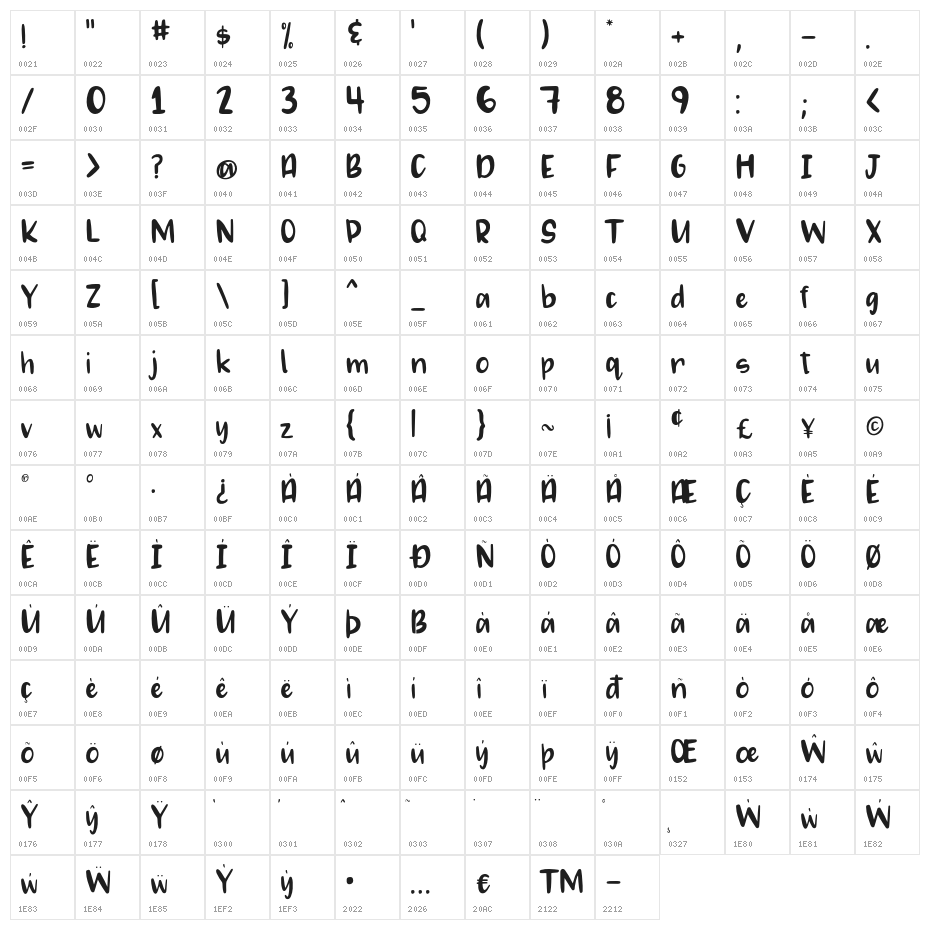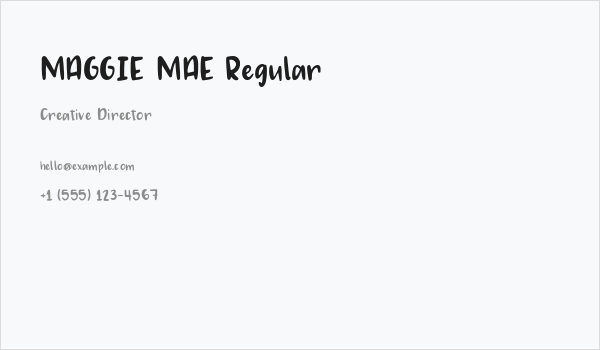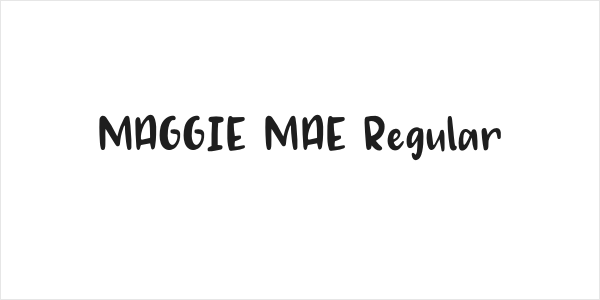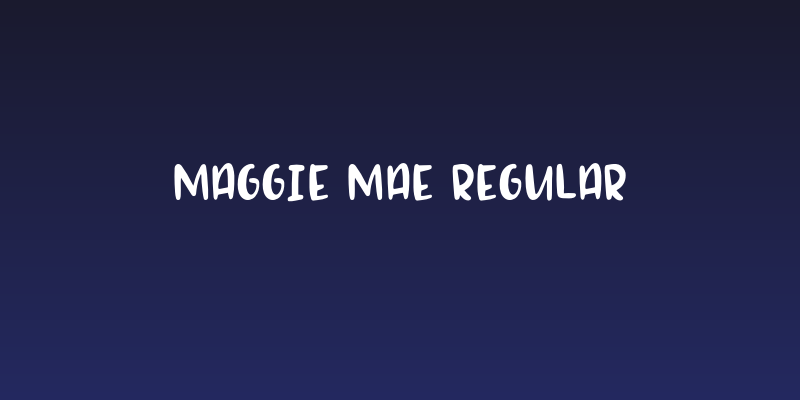
MAGGIE MAE Regular Font
MAGGIE MAE Regular Description
This playful and bold font features a handwritten style with a casual and friendly appearance. The letters are rounded and slightly irregular, giving it a whimsical and approachable feel. The uppercase and lowercase characters maintain a consistent style, with a slight slant that adds to its informal charm. The numerals and special characters are equally playful, making it suitable for projects that require a fun and engaging aesthetic. Its bold strokes and rounded edges make it highly legible, even at smaller sizes.
| Proposed Projects | Ideal for children's books, playful branding, greeting cards, and social media graphics. |